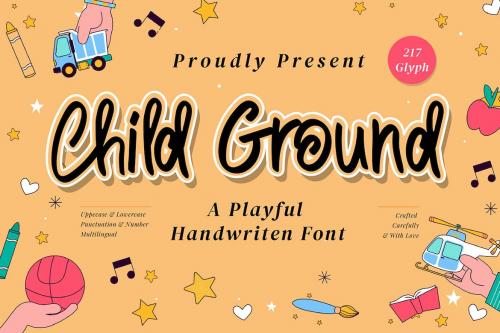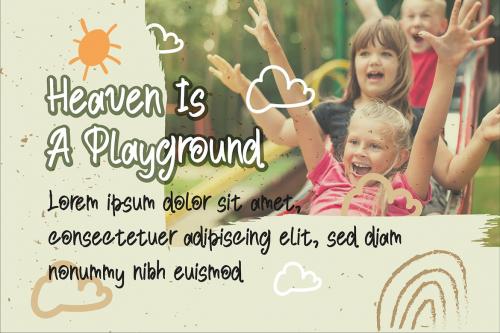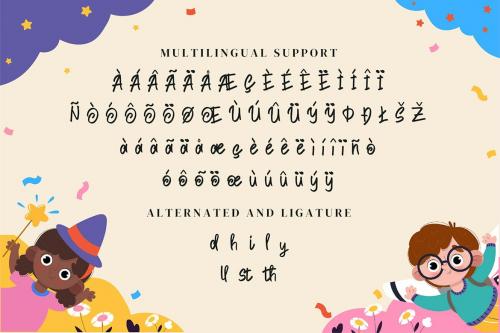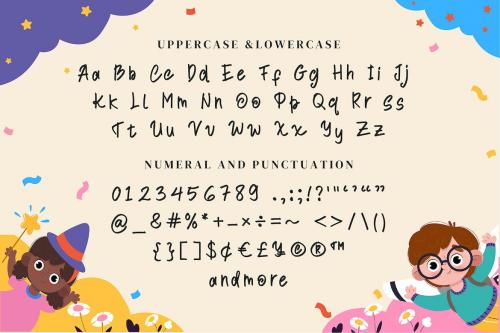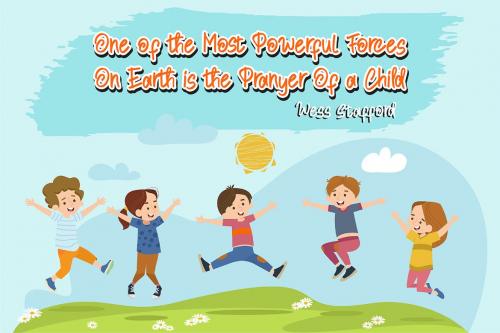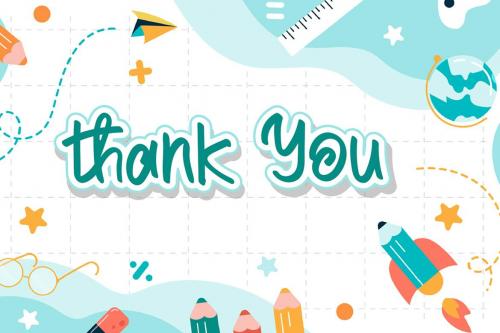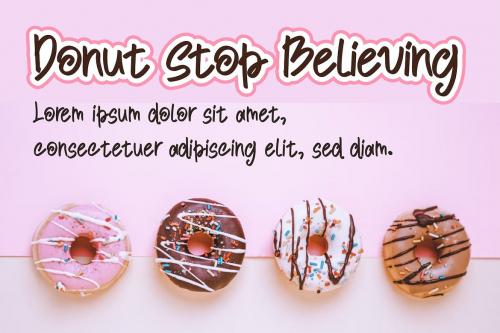
儿童地面 - 有趣的字体
Child Ground is a Playfull font, will be suitable for any projects such as logo’s, branding projects, homeware designs, product packaging, mugs, quotes, posters, shopping bags, t-shirts, book covers, name card, invitation cards, greeting cards, label, photography, watermark, special events, and all your other lovely projects that need beautiful handwriting taste.
**Features :**
- Uppercase & Lowercase
- Numerals
- Punctuations (OpenType Standard)
- Accents (Multilingual Characters)
- Ligatures and Alternative Style Stylistic Set